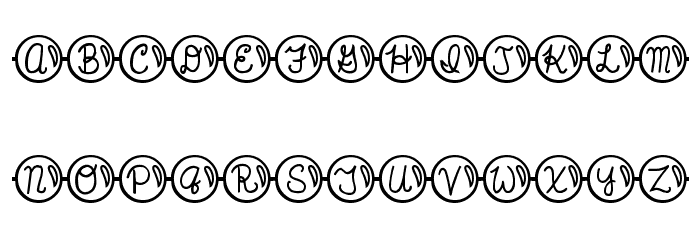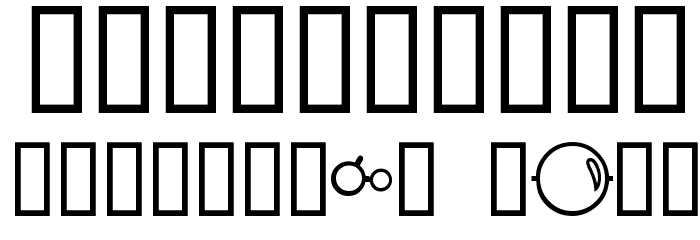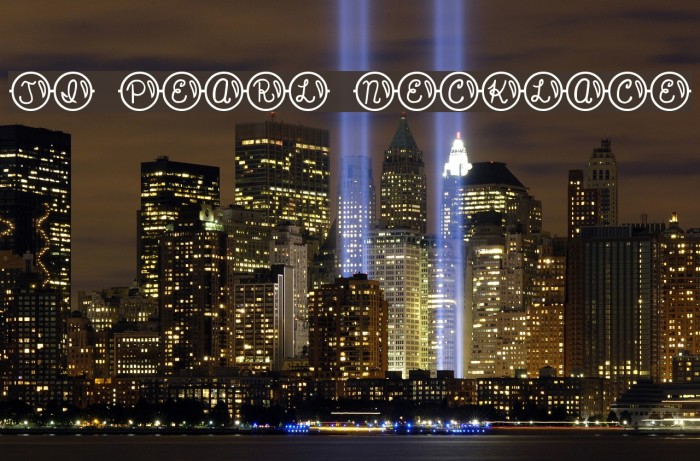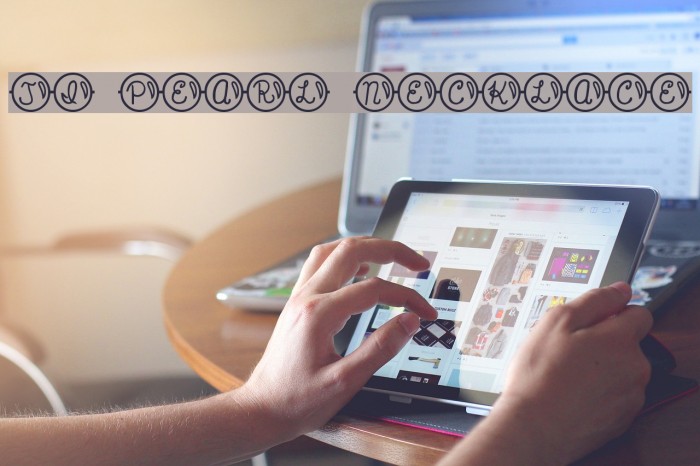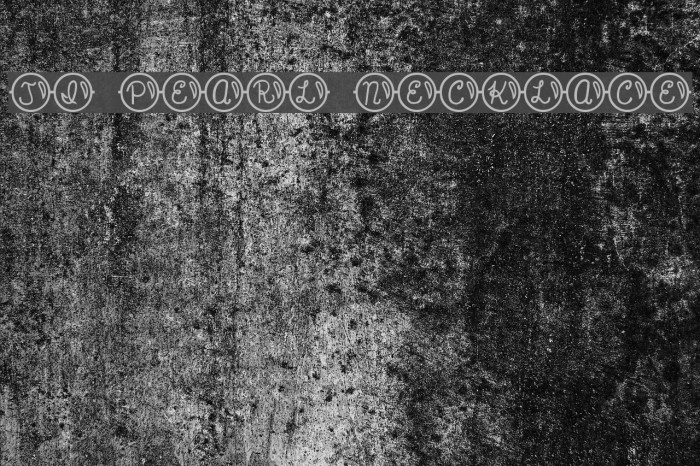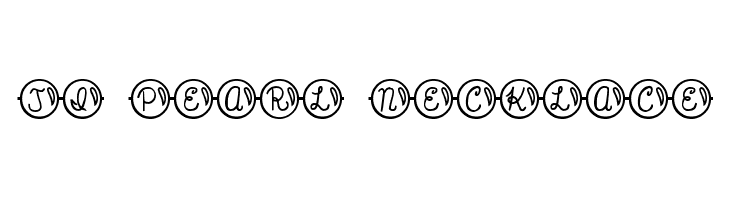
JI Pearl Necklace Font
This decorative font features uppercase letters encased within circular shapes, reminiscent of pearls. Each letter is elegantly styled with a slight flourish, giving it a sophisticated and ornamental appearance. The consistent circular framing around each character adds a unique and cohesive design element, making it stand out for decorative purposes. The font does not include lowercase letters or numbers, focusing solely on uppercase characters and a few special symbols. The overall design suggests a theme of elegance and luxury, suitable for projects that require a touch of class and distinction.
An elegant, decorative font with uppercase letters encased in circular shapes.
- Proposed Projects: Ideal for luxury branding, wedding invitations, jewelry design, and high-end product packaging.
- Use Case: Logos, Invitations, Branding